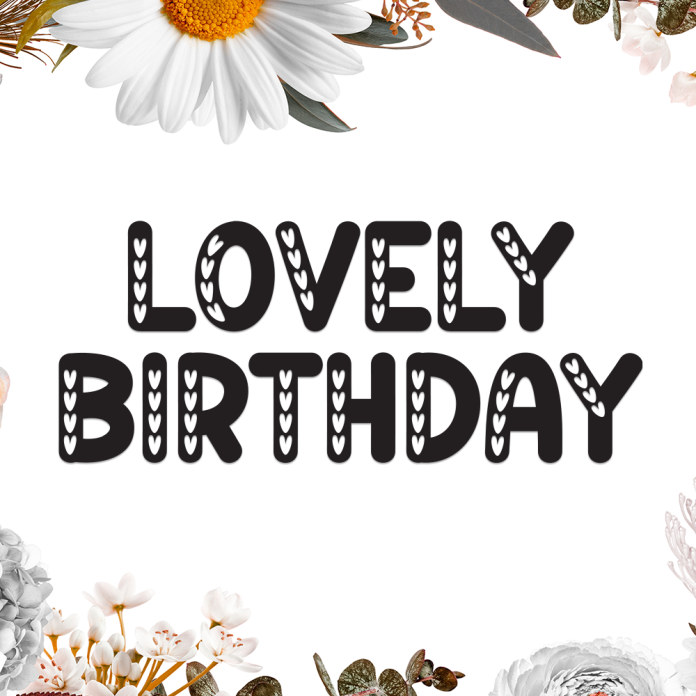
Lovely Birthday is a cheerful and playful display font that captures the excitement of celebrations and special moments. With its bold, bubbly shapes and joyful style, this font is perfect for party-themed designs that need a burst of happiness.
Ideal for birthday invitations, greeting cards, banners, kids’ party decor, and social media graphics, Lovely Birthday brings a festive and colorful vibe to any creative project.
Bright and playful display font
Festive letterforms with fun and friendly vibes
Perfect for parties, birthdays, events, and joyful occasions
Celebrate in style with Lovely Birthday — the font that makes every design feel like a party!